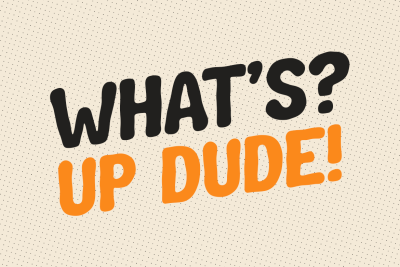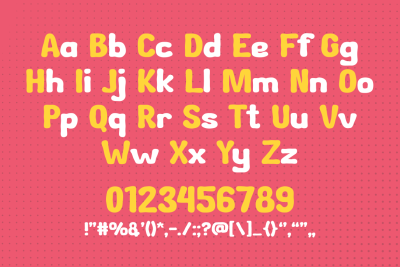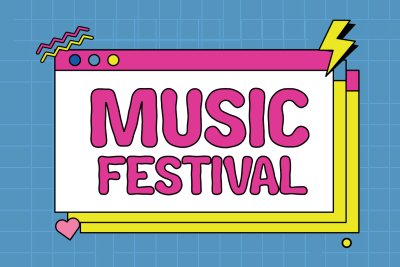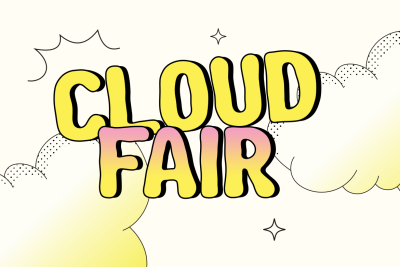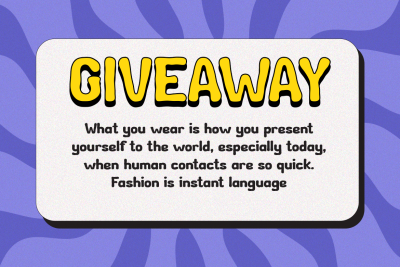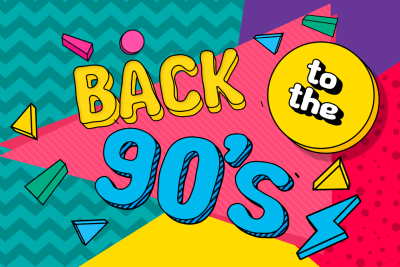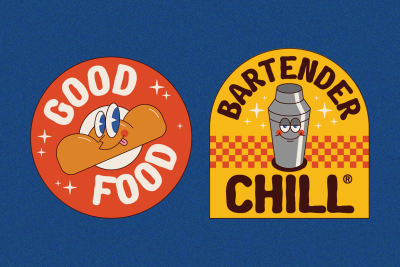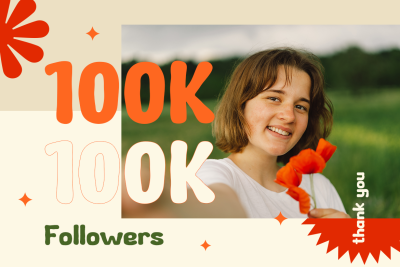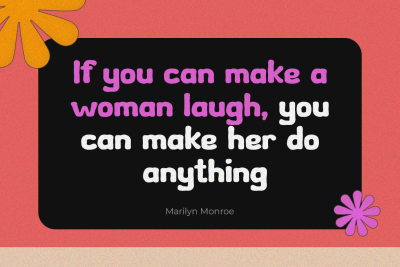
Cute Font Gelombang is a playful, vibrant typeface that brings joy to any design. Its bold, rounded letters give it a friendly look, while the wave-like design adds both movement and fun. The name “Gelombang,” meaning “wave” in Indonesian, perfectly captures this essence, as its letters seem to flow with energy. With its cheerful color scheme, Cute Font Gelombang is ideal for eye-catching, lively designs. Additionally, the rounded edges and slightly irregular shapes add a hand-crafted touch.
Each detail of this fon is adds to its charm. The letters look organic and spontaneous, making it perfect for casual, friendly projects. Despite its playful style, the font remains easy to read, even at smaller sizes. Therefore, its dynamic design is effective for capturing attention, whether in headlines, logos, or social media graphics. In fact, Cute Font Gelombang transforms simple text into a statement, adding a sense of fun to any message.
Cute Font Gelombang Ideal for
This fon is perfect for designers, content creators, and brands seeking a lively look. It’s especially ideal for projects aimed at younger audiences, as it shines in children’s books, educational materials, and apps. Moreover, its playful appearance suits kid-friendly brands, entertainment, and family events. Gelombang helps brands create a friendly image, making it ideal for promotional materials and event posters.
Additionally, digital creators and social media influencers can benefit from this font. Cute Font Gelombang adds a cheerful, memorable touch to posts, captions, and thumbnails. Its bold shapes help capture attention in social feeds, thereby adding a creative edge.
Educators and creators in the education field will find this font valuable too. Its friendly style makes learning materials more inviting, perfect for worksheets, posters, and activity books. Furthermore, the vibrant look adds excitement, which helps engage young learners. Cute Font Gelombang works well in presentations, interactive tools, and resources that spark curiosity.
For anyone wanting energy and personality in their designs, this fon is an excellent choice. It’s more than just a font; it’s a mood, a wave of creativity, and an invitation to have fun. Whether used in branding, social media, or educational content, Gelombang makes your message stand out memorably.